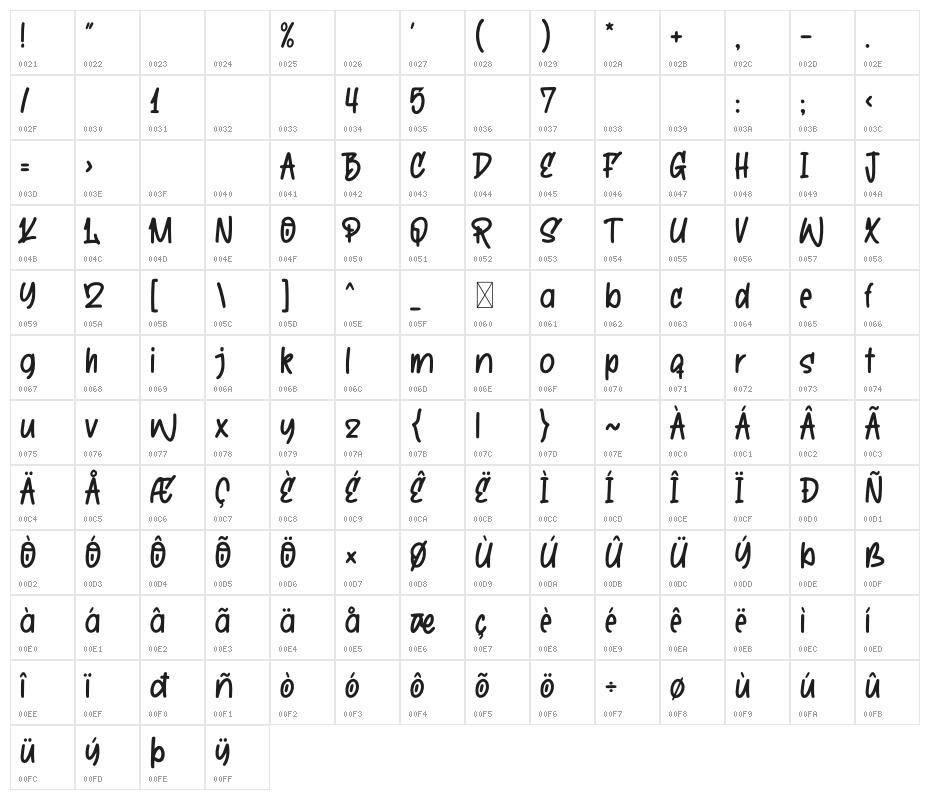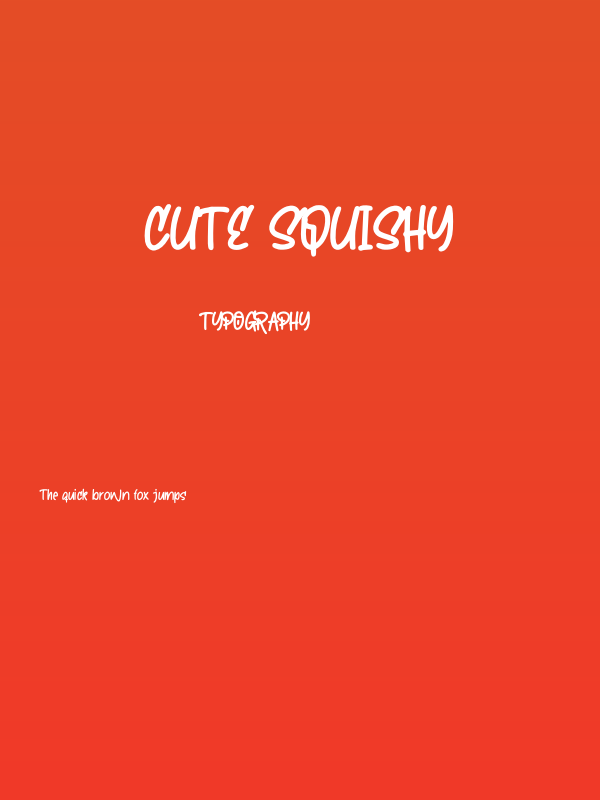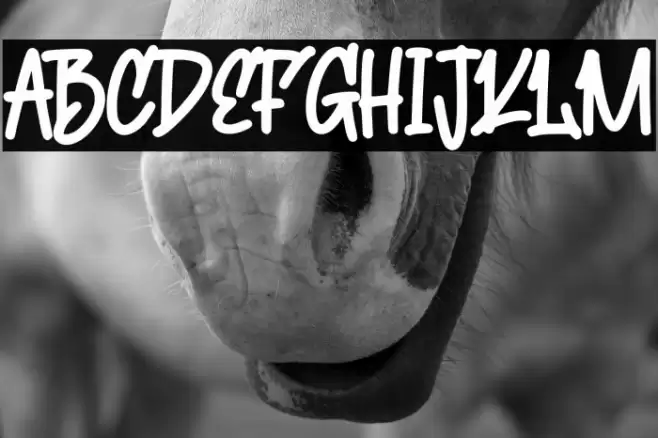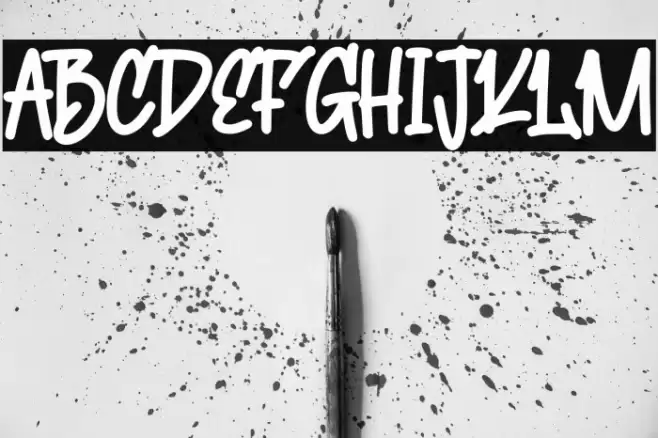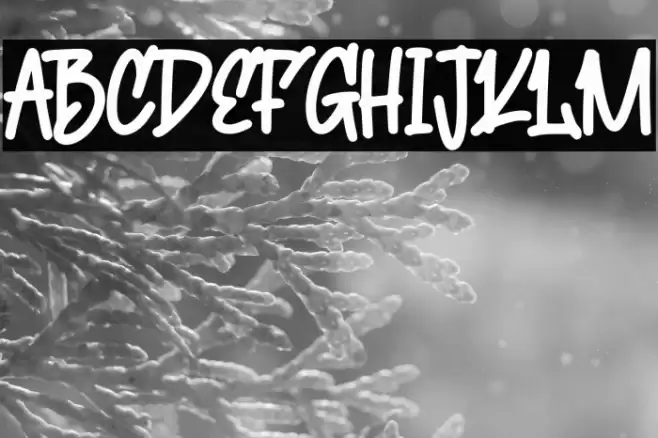
Cute Squishy Font
Cute Squishy Description
A playful, handwritten font with a casual and friendly appearance. The letters are rounded and slightly irregular, giving it a whimsical feel.
| Overall Style | Casual, Whimsical |
| Use Case | Headlines, Informal text, Branding |
| Proposed Projects | Greeting cards, children's books, playful branding. |